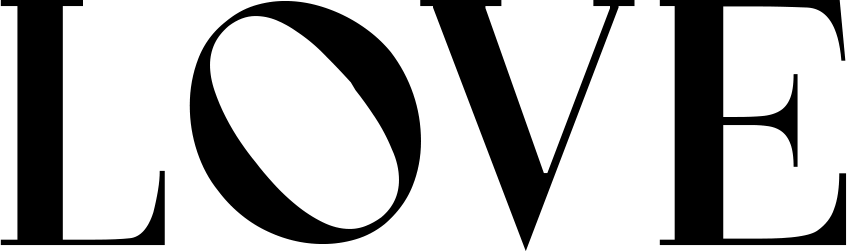
Love Font
By using a serif font such as Love, you can dive into your customer’s passion and meet their needs, moreover, this elegant font immediately engages the audience with your content by conveying a sense of confidence, credibility, and respect.
Although it doesn’t support lowercase letters, due to its eye-grabbing look it is reasonable to include Love in designing business cards, logos, flyers, and writing important documents.